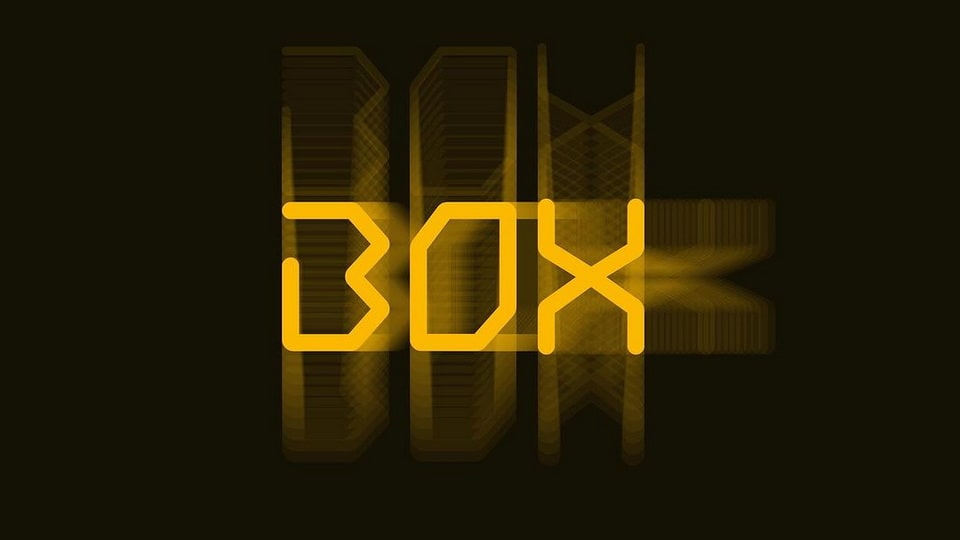
Download Box font, a geometric sans-serif typeface that blends modern minimalism with clean geometric shapes, offering both a sleek and versatile design solution for various applications.